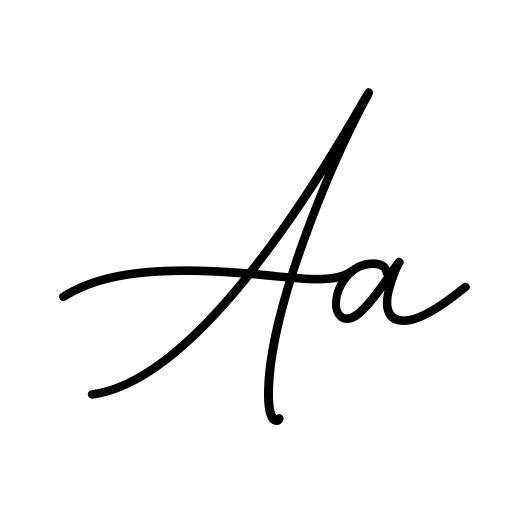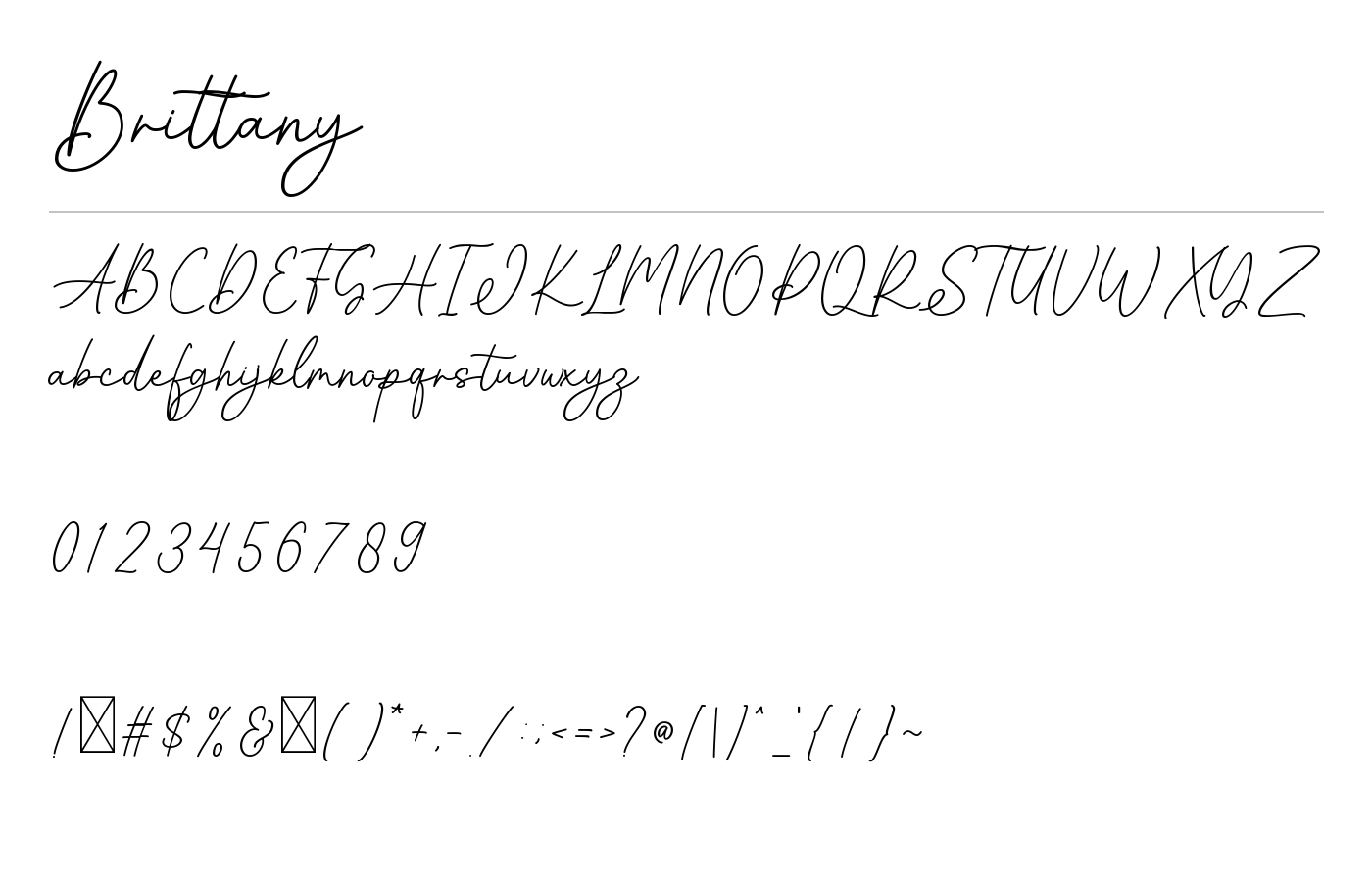
Brittany Font is a delicate, handwritten script with a light and airy feel, characterized by slender strokes and elegant, flowing letterforms. Its casual yet refined style makes it perfect for creative branding, invitations, and feminine design projects where a personal, graceful touch is desired. This font works beautifully in headlines and logos where charm and sophistication are key.
Brittany Font
About Brittany Font